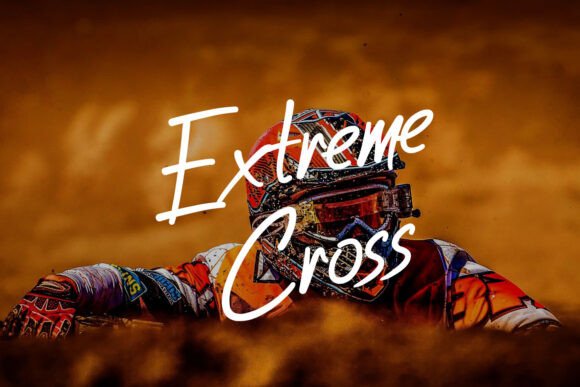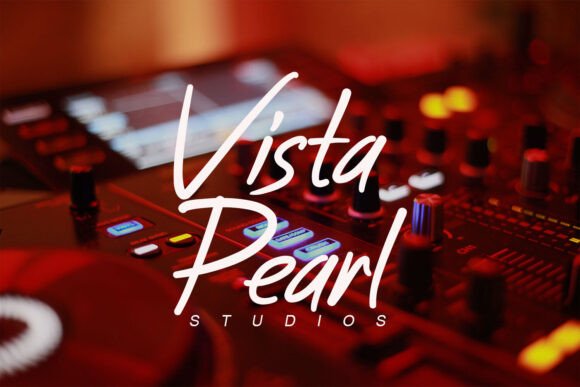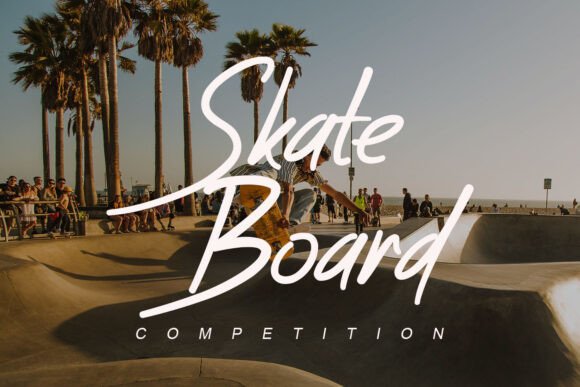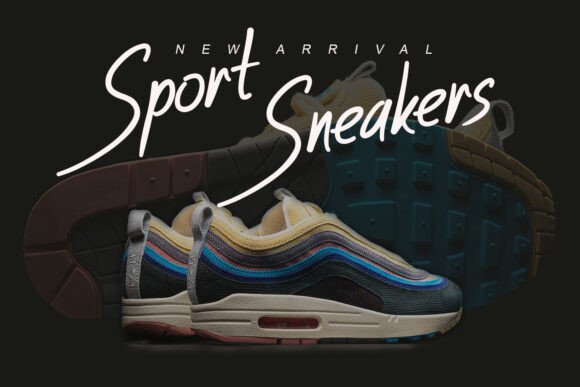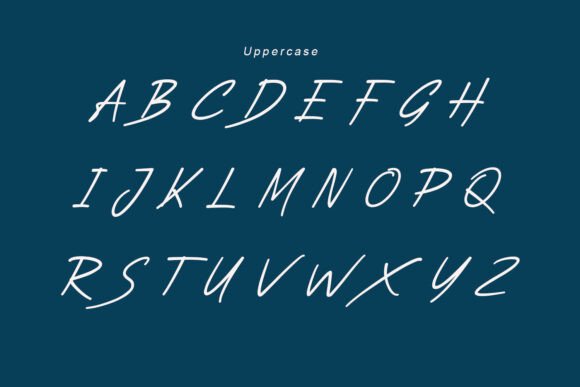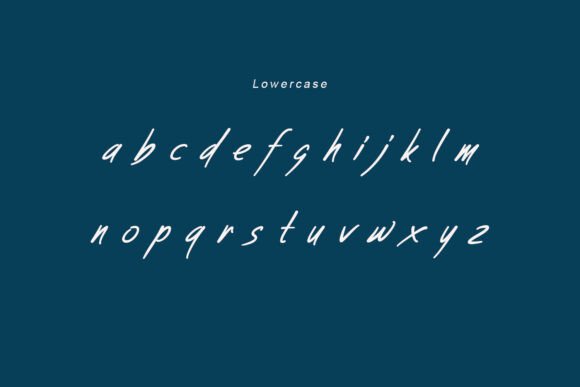
Discovering the Unbridled Spirit of Rocks Hound Font
As a designer, there’s nothing quite like the thrill of stumbling upon a font that sparks your creativity and sets your project ablaze. For me, that moment came when I laid eyes on the Rocks Hound Font – a unique handwritten font that embodies the perfect blend of style and influence. Its dynamic, casual strokes and refined lines transport me to a world of spontaneous expression and laid-back flair.
What I love most about the Rocks Hound Font is its ability to add a touch of personality to even the most mundane designs. Whether you’re working on a high-quality creative project or simply need a design resource to elevate your next poster or flyer, this font is sure to bring a dash of excitement to your work. And the best part? It’s available for free download, complete with a transparent background to ensure seamless integration into your design.
As a valuable addition to any designer’s toolkit, the Rocks Hound Font is poised to revolutionize the way we approach design. With its bold, refined lines and spontaneous flair, it’s the perfect companion for any creative endeavor. So why wait? Dive into the world of Rocks Hound Font and discover a new dimension of design possibilities.
Key Features of Rocks Hound Font
- High-quality, unique font design perfect for creative projects.
- Designed to be a versatile design resource for various creative projects, including logos, graphics, and typography.
- Unique characteristics include a bold, rugged aesthetic and a wide range of customizable options.
Honest Review: Rocks Hound Font
I recently had the chance to work with the Rocks Hound Font, and I must say it’s a unique addition to any design project. As a designer, I appreciate high-quality fonts that can elevate a creative project to the next level.
Here are some aspects that work well with the Rocks Hound Font:
- Unique lettering style that adds a touch of personality to any project
- High-quality design that looks great on screen and in print
- Easy to use and customize for various design needs
- Only available in a limited number of font styles
- Not ideal for projects that require a large character set
Overall, the Rocks Hound Font is a great addition to any designer’s toolkit, but it may not be the best fit for every project. I would recommend it for smaller, more focused designs where its unique character can shine.
To get the most out of Rocks Hound Font, use it in conjunction with other design resources, such as graphics and images. Experiment with different font sizes and colors to create a unique look.
Rocks Hound Font is ideal for creative projects, such as:
- Poster design
- Infographic design
What is the recommended font size for the Rocks Hound Font?
The recommended font size for the Rocks Hound Font varies depending on the specific use case. However, as a general rule of thumb, we recommend using font sizes between 12-24 points for body text and 36-48 points for headings. This will ensure that the font is legible and visually appealing in your design project.